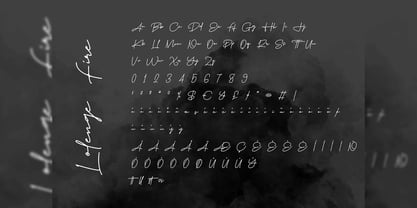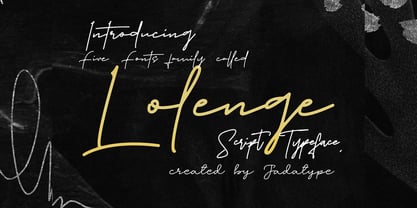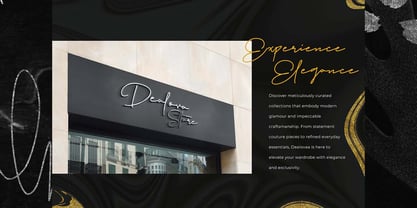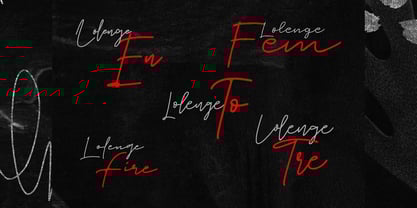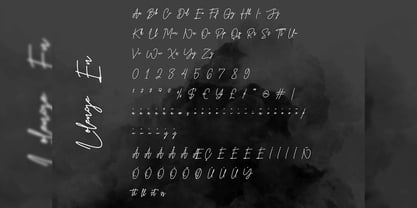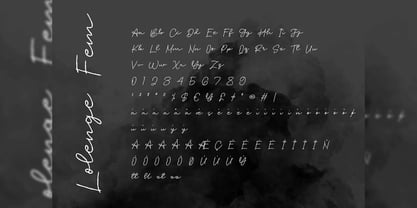
Lolenge
by Jadatype
The Lolenge Font Family was designed by Jada Akbal and published by Jadatype. Lolenge contains 5 styles and family package options. More about this family
Lolenge is a script typeface that comes with 5 styles of script font, flowing lines that add elegance to any design. With full multilingual support, it’s perfect for global projects. Easily installable in Adobe and Affinity applications, Lolenge enhances your creative workflow, making it ideal for branding, invitations, and more.